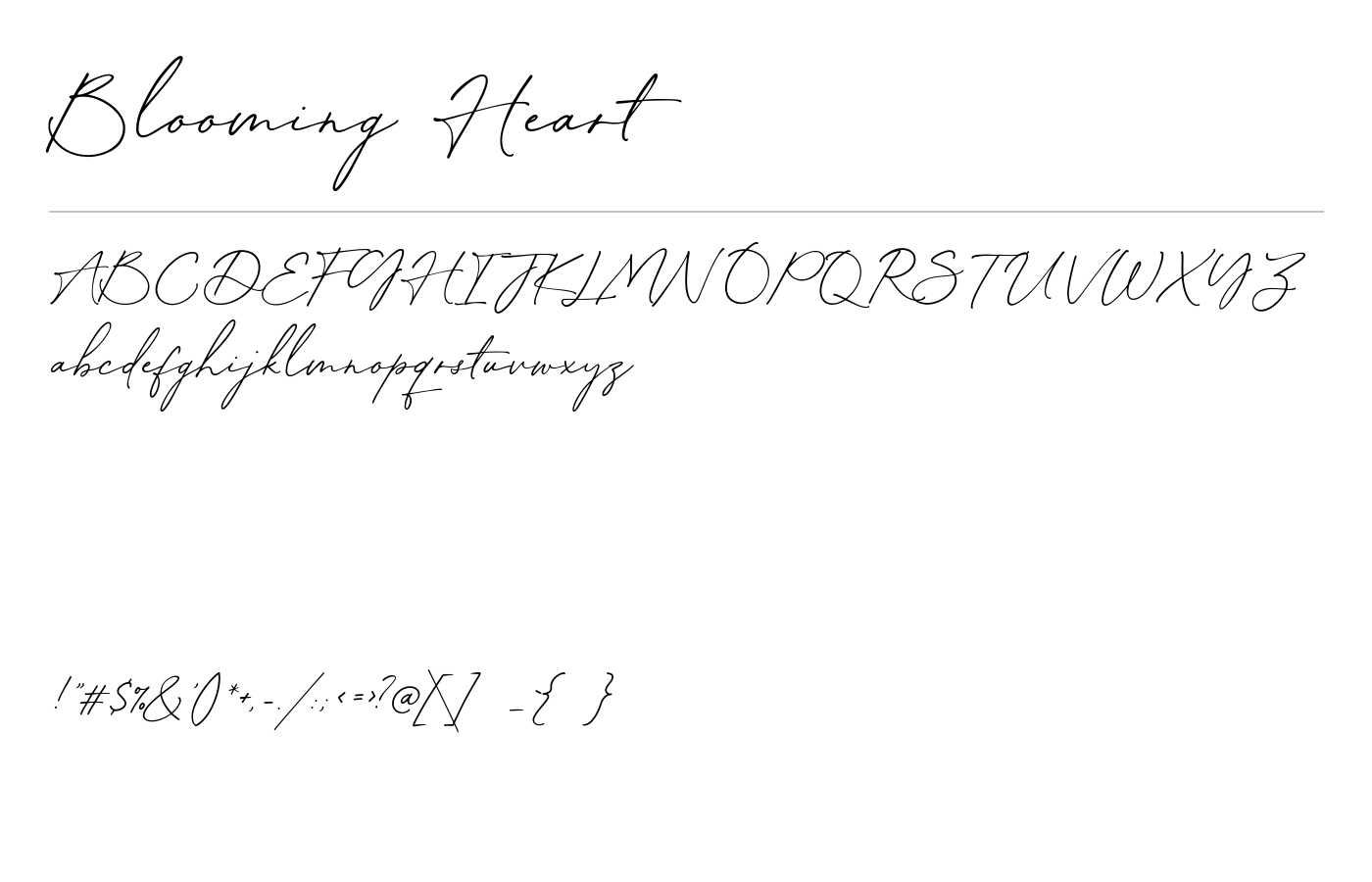
Blooming Heart is an elegant and delicate script font with a slender, handwritten style that features fluid, graceful strokes and a natural, airy feel. Its light weight and flowing letterforms make it perfect for romantic or stylish branding, invitations, and feminine design projects where a personal, refined touch is desired. This font works best in headlines and logo designs where its charming, sophisticated personality can truly shine.
Blooming Heart Font
About Blooming Heart Font
| Designer | Annas Alam Yahya |